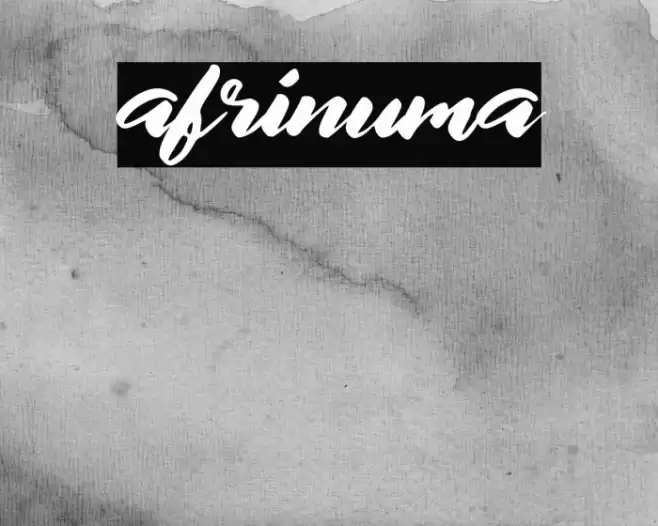
afrinuma Font
afrinuma Description
This font features a bold and expressive script style, characterized by its fluid and dynamic strokes. The uppercase letters are elegantly crafted with sweeping curves and a sense of movement, while the lowercase letters maintain a consistent flow, enhancing readability. The font exudes a sense of elegance and sophistication, making it suitable for projects that require a touch of class and flair. Its bold weight and high contrast between thick and thin strokes add to its striking appearance, making it ideal for attention-grabbing designs.
A bold, expressive script font with fluid strokes and high contrast from Uncategorized fonts.
- Proposed Projects: Ideal for wedding invitations, branding, logo design, and elegant packaging.
- Overall Style: Elegant, Sophisticated
- Use Case: Logos, Invitations, Branding